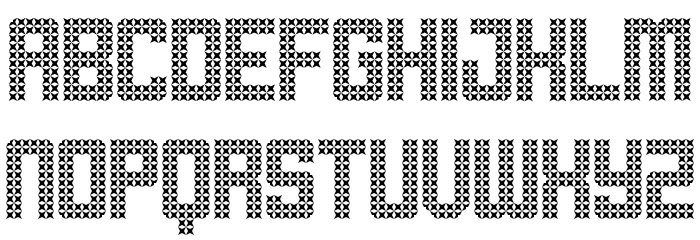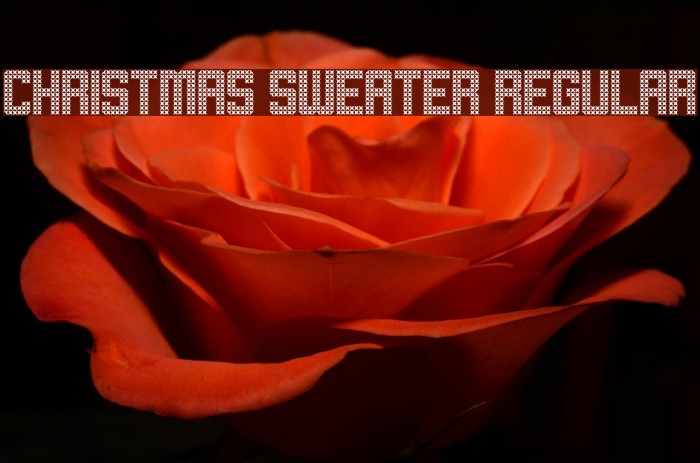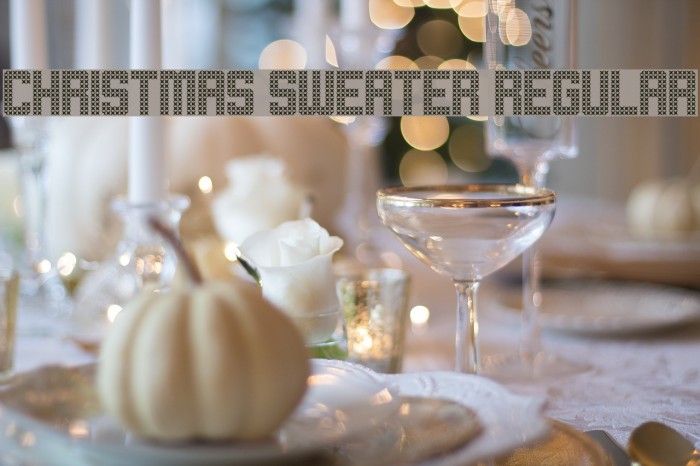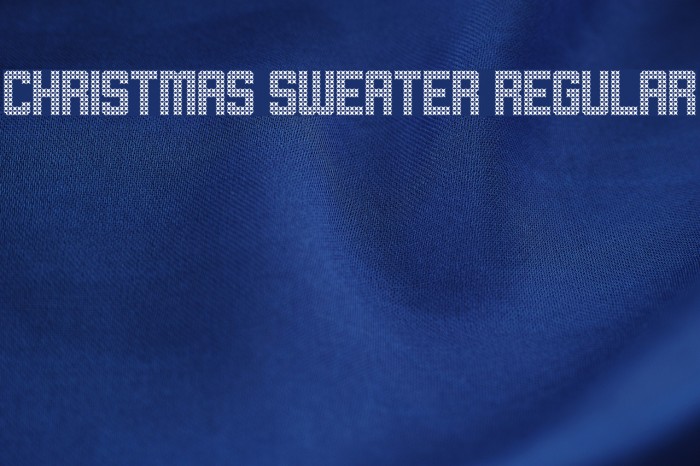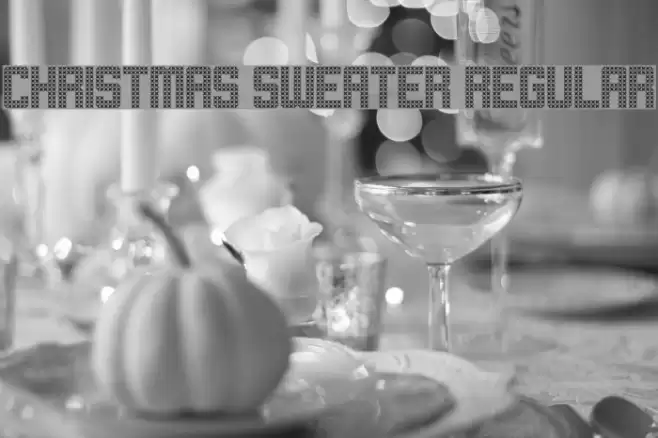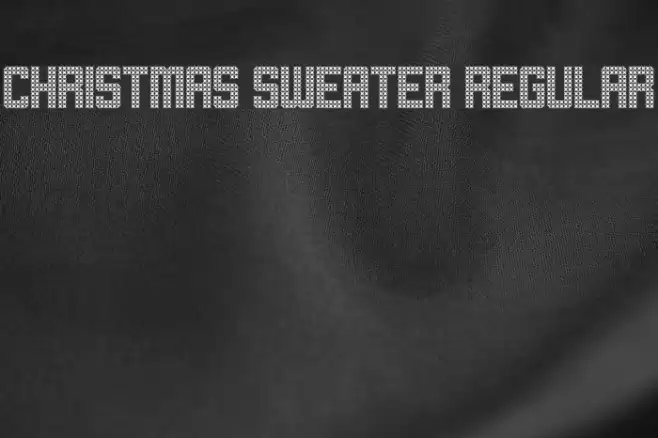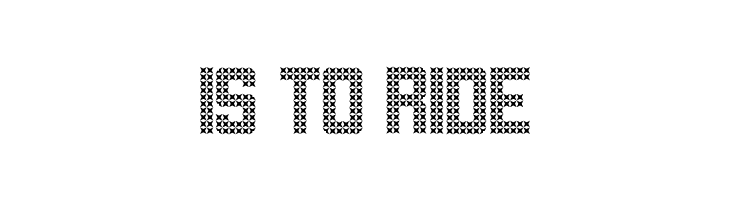
Christmas Sweater Regular Font
This font features a unique, decorative style reminiscent of traditional knitted patterns, often associated with festive holiday sweaters. Each character is composed of a series of small, repeating geometric shapes that create a textured, woven appearance. The uppercase letters are bold and blocky, providing a strong visual impact. The design is consistent across all characters, maintaining a uniform look that enhances its decorative appeal. This font is perfect for adding a touch of holiday cheer to any project, with its playful and nostalgic aesthetic.
A decorative font inspired by traditional knitted holiday patterns.
- Proposed Projects: Ideal for holiday-themed designs, greeting cards, festive banners, and seasonal marketing materials.